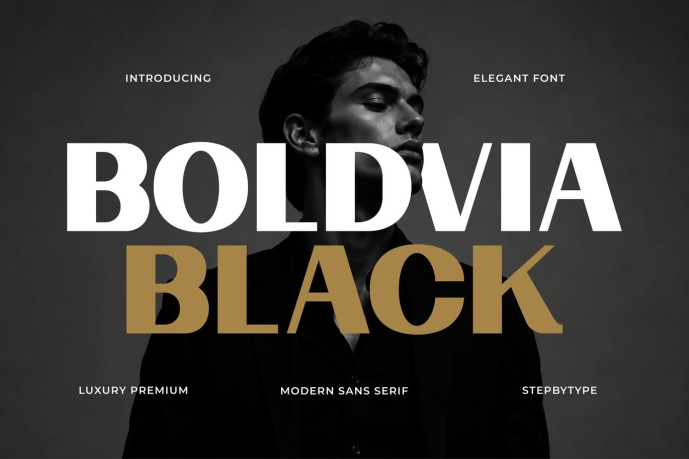
Boldvia Black Font
Boldvia Black is a premium ultra-bold sans serif display font crafted for luxury branding and modern visual identities. Featuring clean geometric construction, balanced proportions, and exceptional readability, Boldvia Black delivers a commanding presence while maintaining a refined and sophisticated aesthetic.
Its minimalist design makes it incredibly versatile—perfect for premium logos, fashion campaigns, editorial layouts, luxury packaging, cosmetics, architecture, hospitality, and high-end branding projects. Whether used in large headlines or striking brand marks, Boldvia Black communicates confidence, elegance, and timeless modernity. Designed for creatives who appreciate bold simplicity, Boldvia Black transforms typography into a powerful branding statement.
Best For
Luxury branding, premium logos, editorial headlines, magazines, cosmetics packaging, perfume branding, hotel branding, architecture, interior design, lifestyle brands, advertising campaigns, product packaging, websites, social media, technology brands, and modern corporate identities.